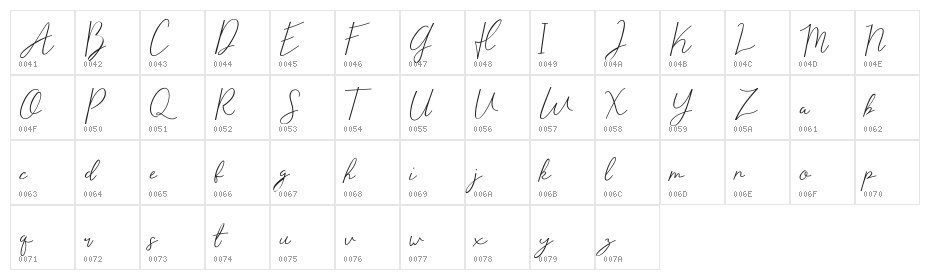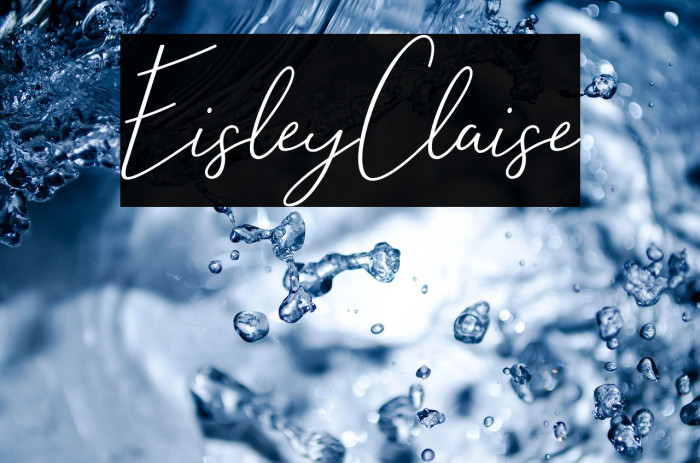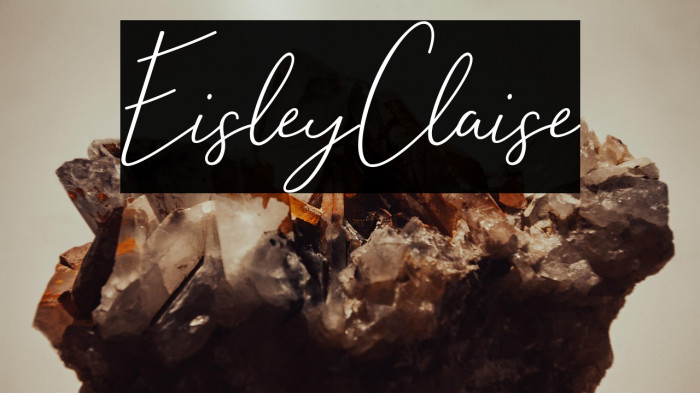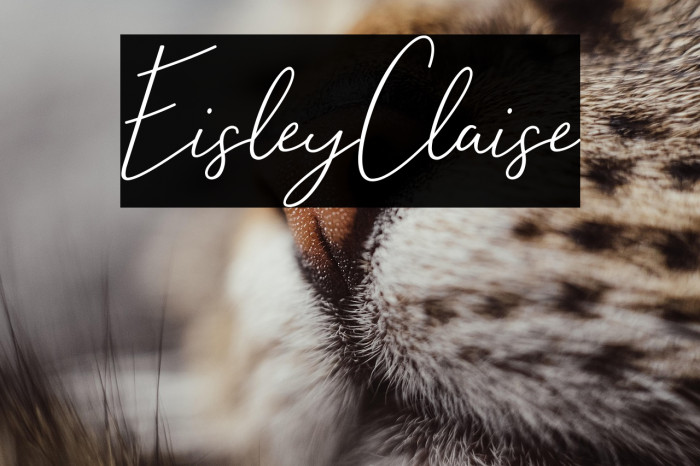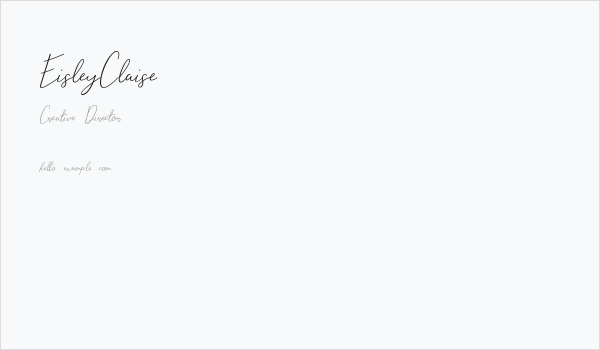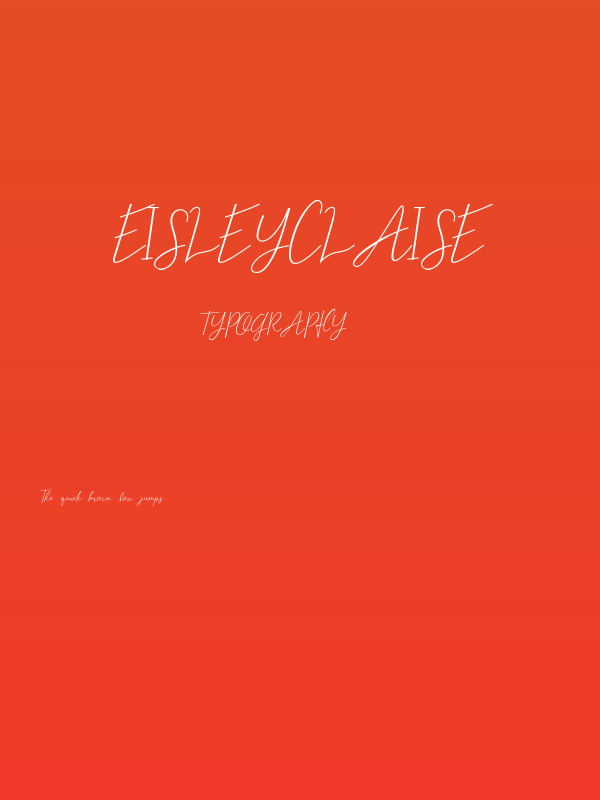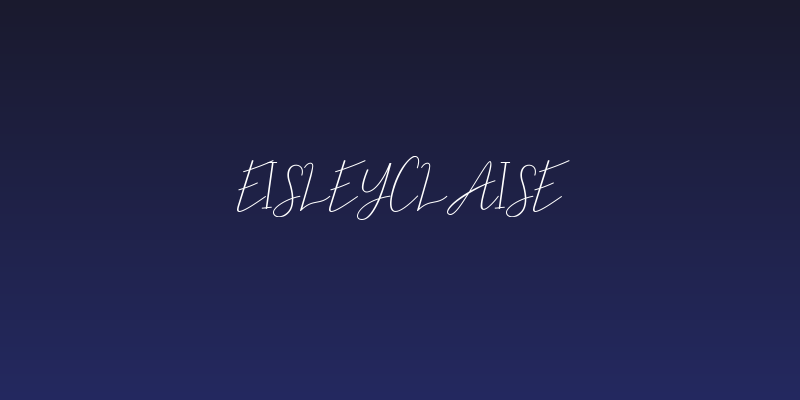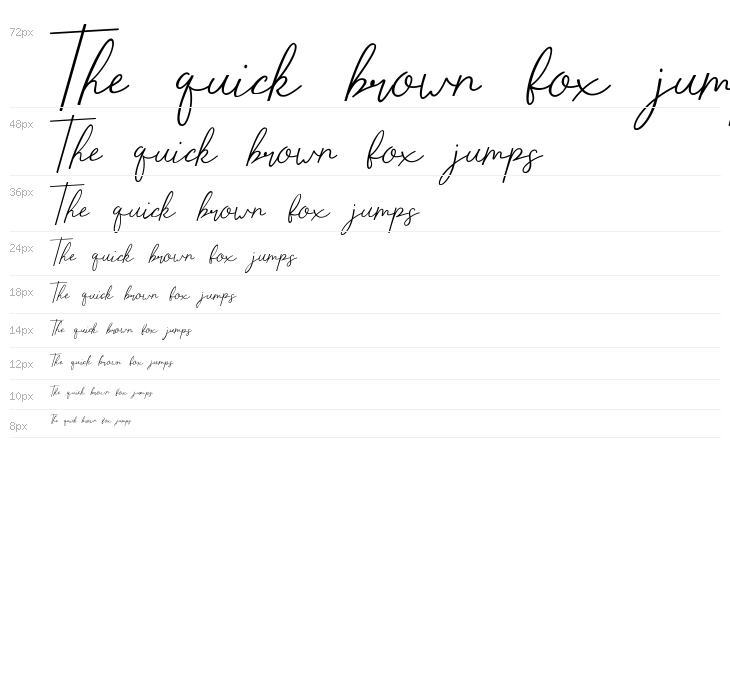
EisleyClaise Font
EisleyClaise Description
This font features a flowing, cursive style that mimics elegant handwriting. The characters are connected with smooth, sweeping lines, giving it a graceful and sophisticated appearance. The uppercase letters are tall and slender, while the lowercase letters maintain a consistent flow with subtle loops and curves. The font's overall aesthetic is both modern and classic, making it versatile for various design applications. Its delicate strokes and refined structure make it suitable for projects that require a touch of elegance and personalization.
| Overall Style | Elegant, Modern |
| Proposed Projects | Ideal for wedding invitations, greeting cards, personal branding, and elegant logos. |